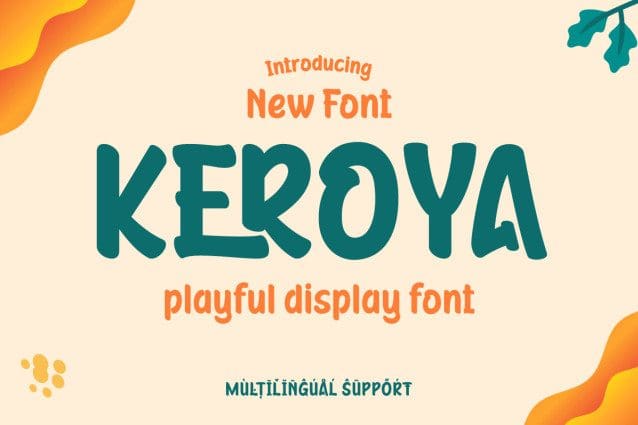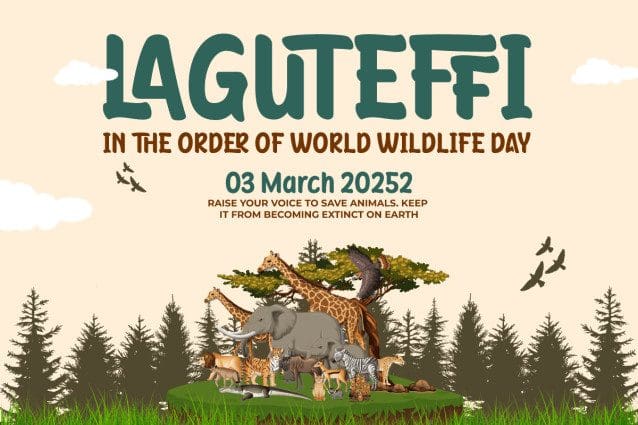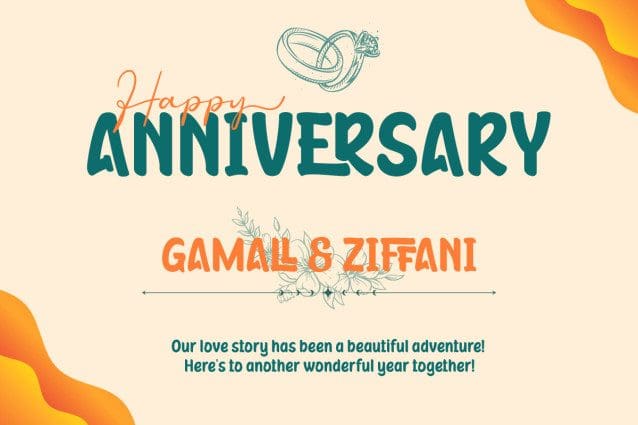
Keroya Playful Font
Keroya Playful Font brings a relaxed feel and beautiful handwriting to each character. This font is designed to bring your designs to life, giving any project a relaxed and stylish feel. With Keroya Playful , you can create a headline that stands out, a catchy slogan, or a memorable message. Get Keroya now and let your imagination tell a stunning visual story.